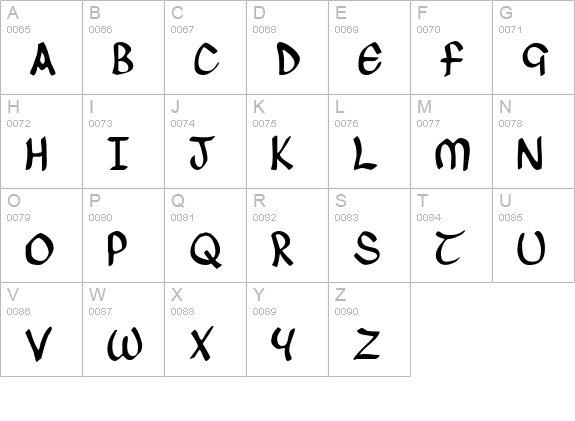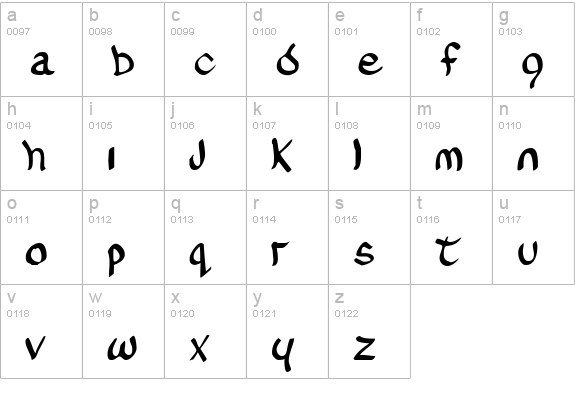
O'Connor font is a modern and elegant typeface that exudes sophistication and style. With its clean lines and distinctive letterforms, O'Connor font is perfect for a wide range of design projects, from branding to editorial design. Its versatility and timeless appeal make it a must-have for any designer looking to add a touch of class to their work. The best part? O'Connor font is available for free download at FontsMarket.com. This means you can easily access this high-quality font without any cost, making it a valuable addition to your font library. Don't miss out on the opportunity to enhance your designs with the beauty and refinement of O'Connor font - download it for free today at FontsMarket.com!